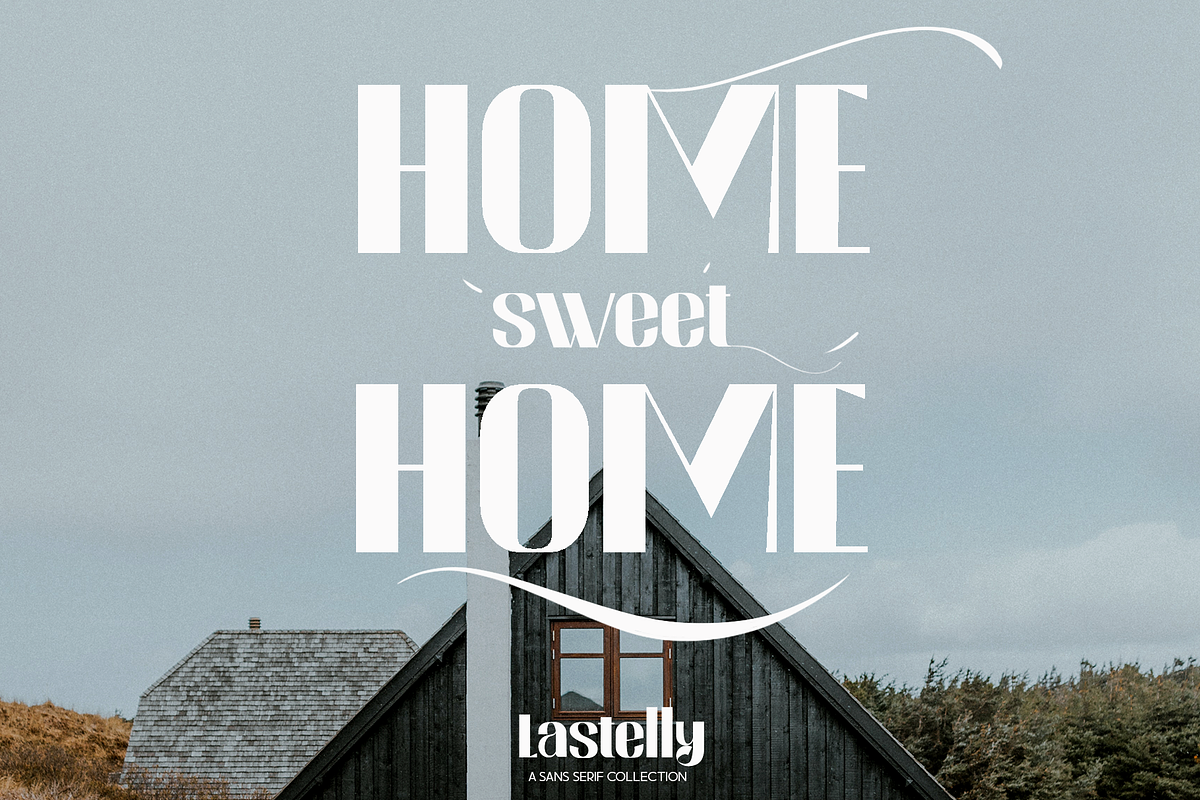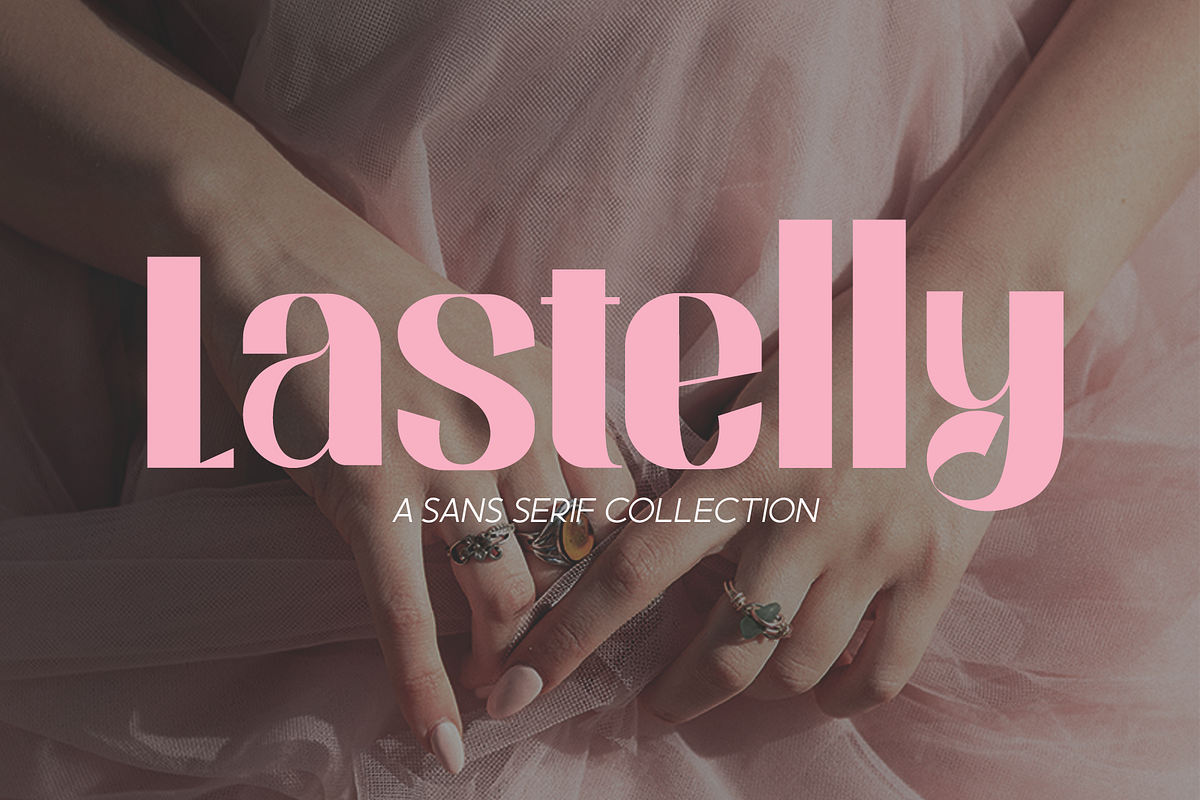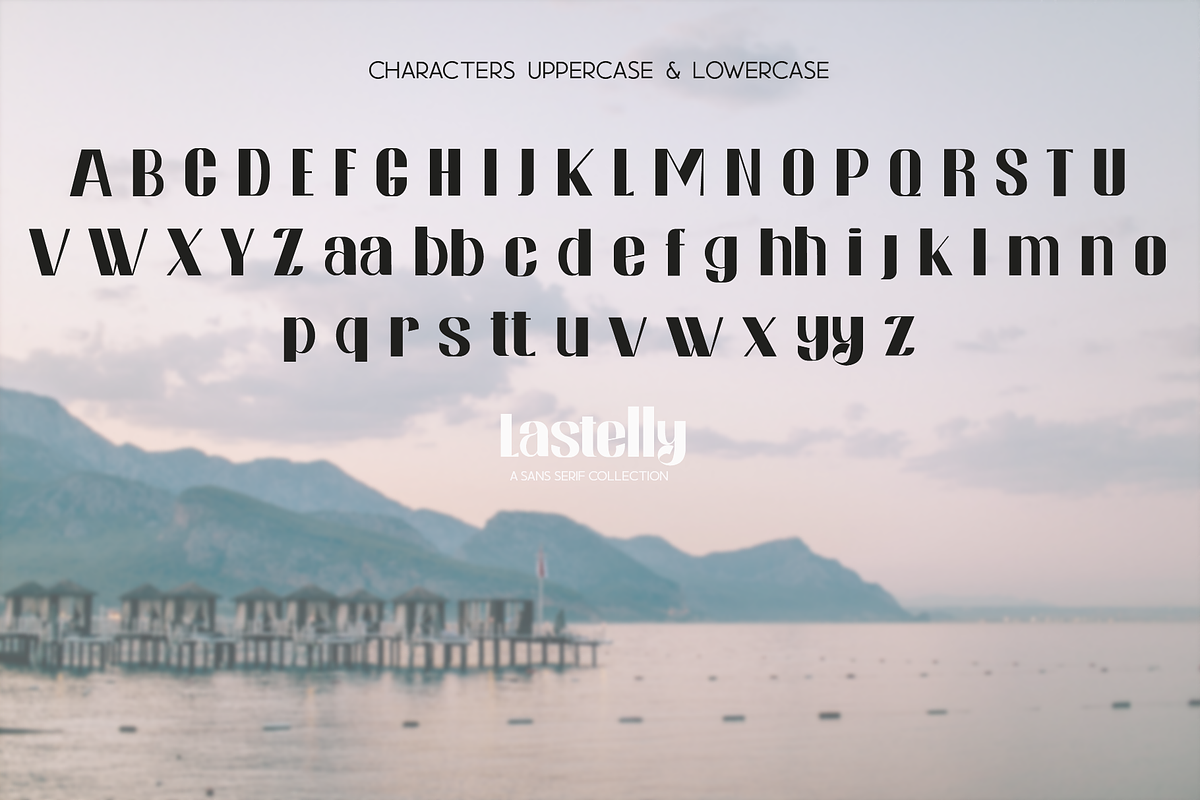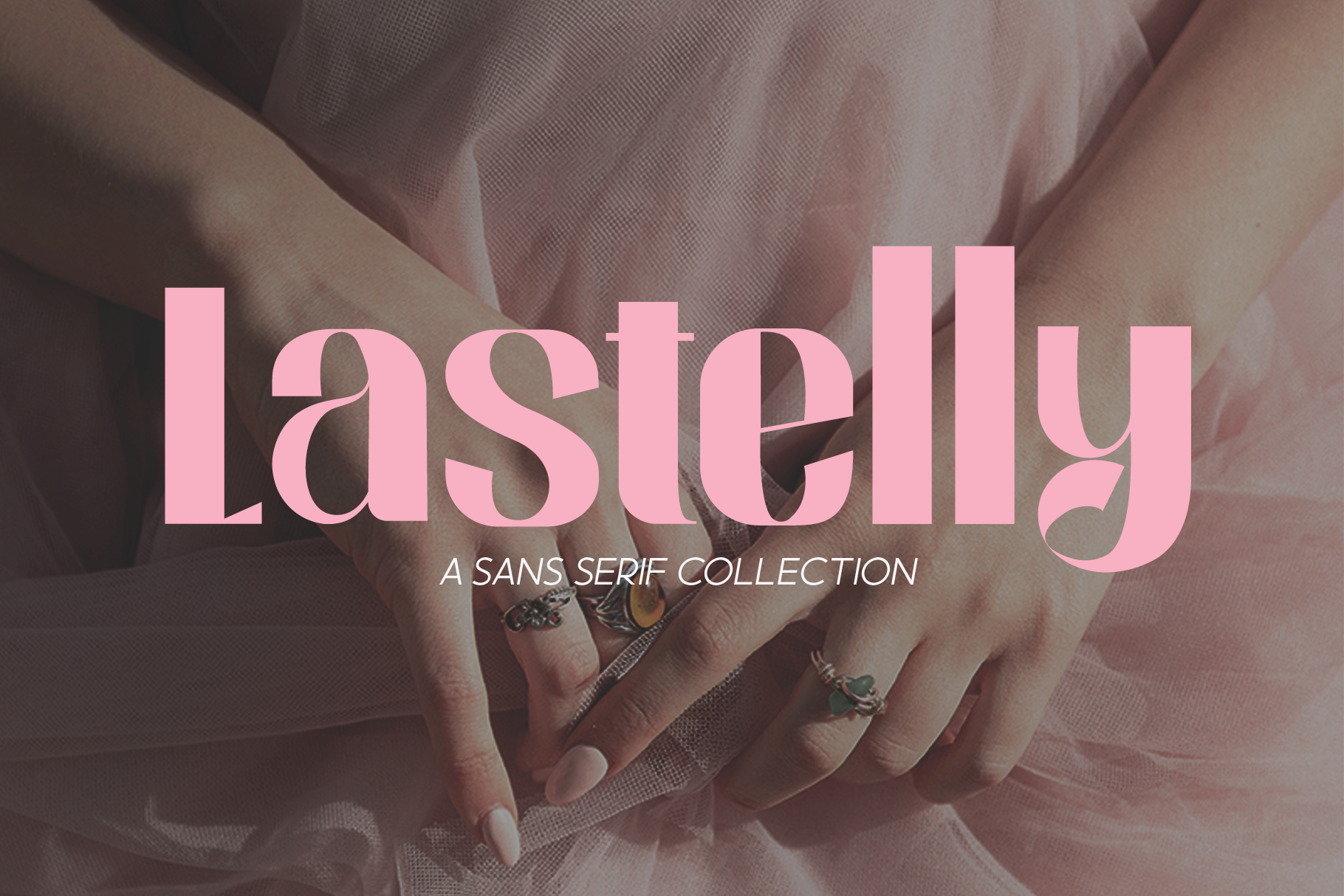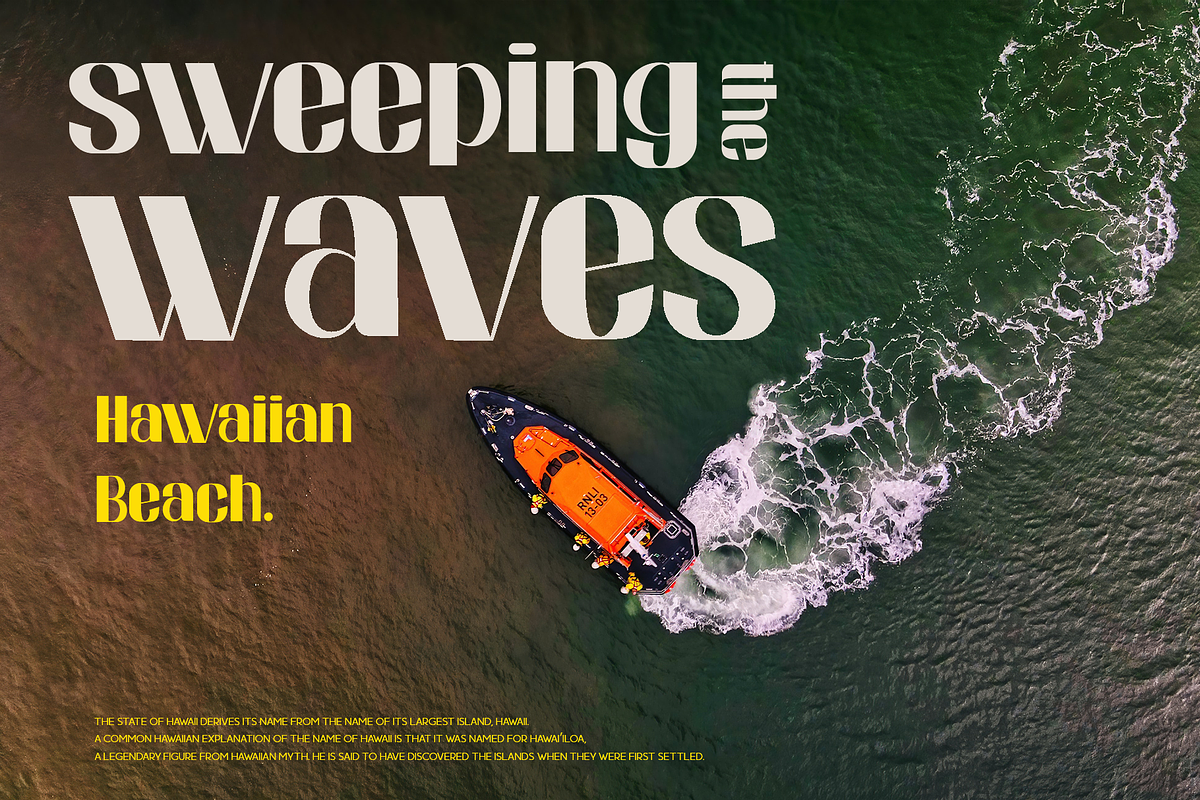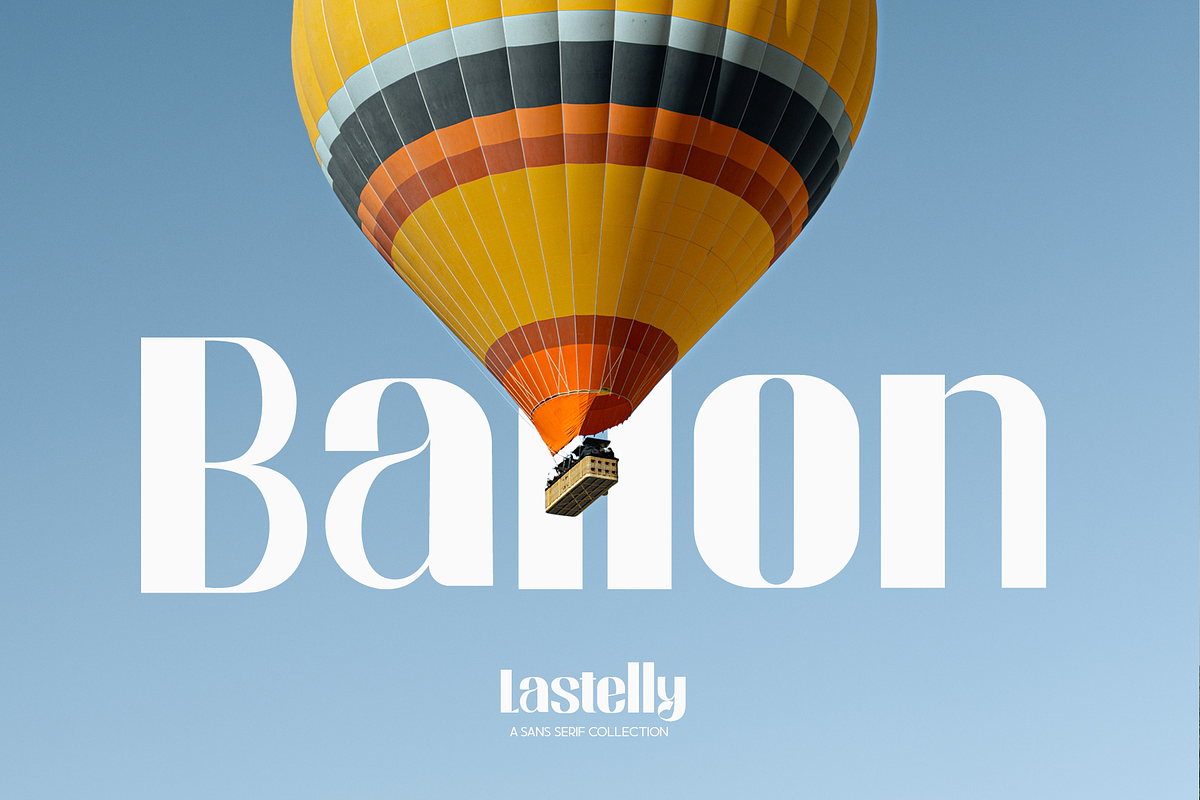
Lastelly - Sans Serif Font
Introducing Lastelly, a simple and elegant sans serif font. Its unique and lovely feel. So perfect for you who needs a typeface for logo designs, magazine, social media, brochure, and many more.